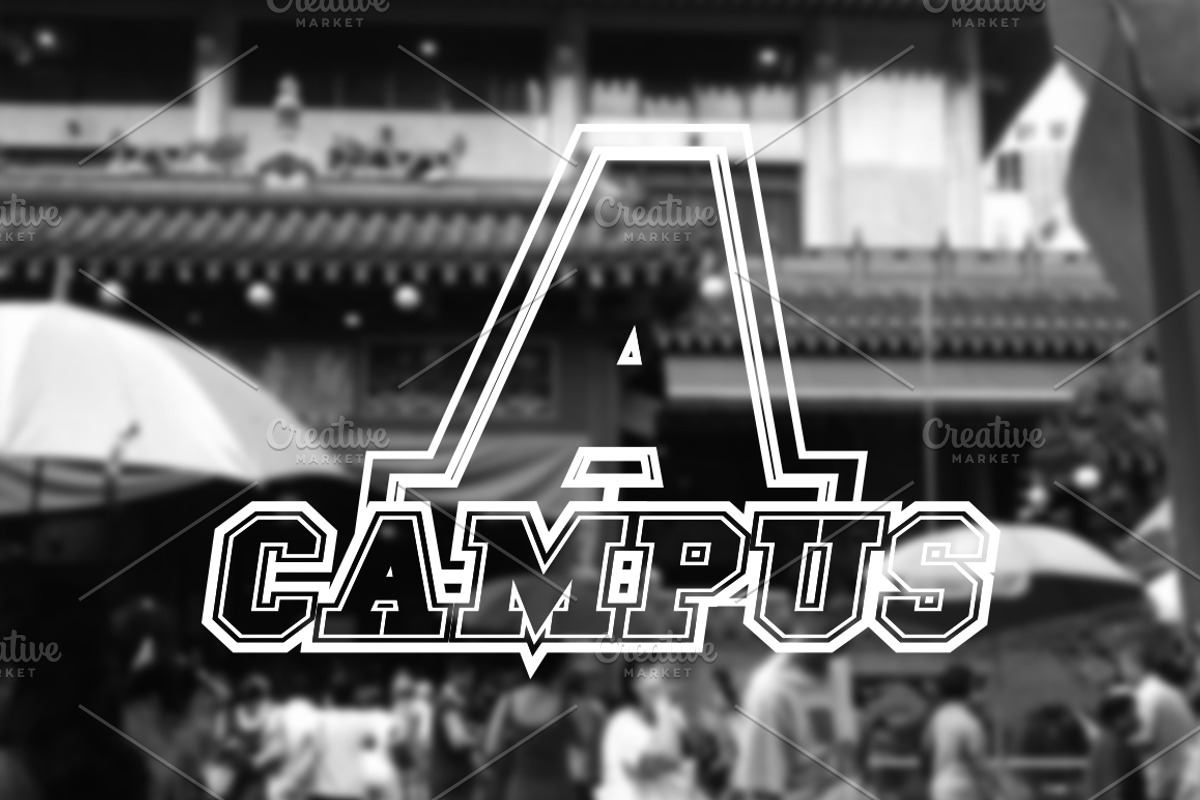
Campus A Font Free Download is a classic collegiate-style typeface that captures the spirit of varsity sports, academic pride, and retro athletic design. With its bold, blocky letterforms and clean geometry, Campus A is perfect for school branding, team uniforms, event posters, apparel design, and vintage-inspired graphics.
Whether you're creating a high school logo, a university merchandise line, or nostalgic sports-themed content, this font brings authority, tradition, and impact. It works great in both print and digital formats and maintains strong readability even at larger sizes.